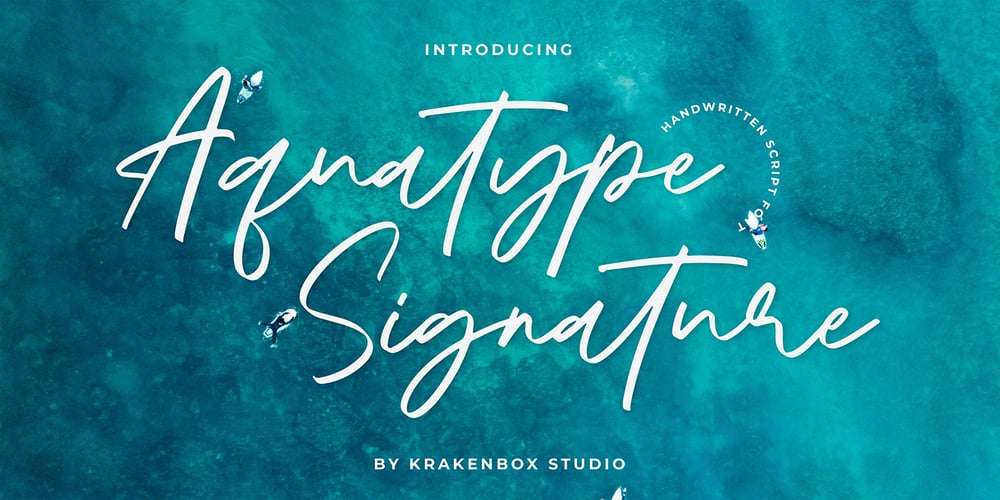
Aquatype Signature Font Family was designed by Yahdi Kumala and published by Krakenbox Studio. Aquatype Signature contains 1 styles and family package options. Aquatype Signature is a free-flowing script font created for packaging products, invitation cards, flyers, mockups, event posters, and anything else that requires high-quality vibes. It has a beautiful and balanced character, that fits well with the large design pool.